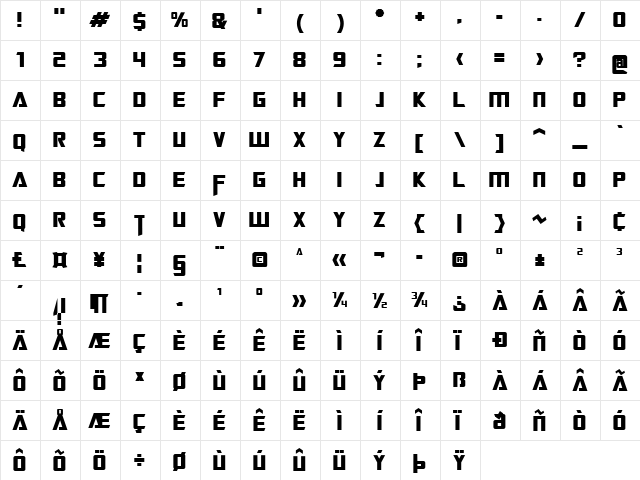
Transformers Regular
| Foundry | P. A. Vannucci |
| Designer | P. A. Vannucci |
Design Context for Transformers Typeface
Transformers is a composed and adaptable typeface that performs quietly and consistently across a wide range of design contexts.